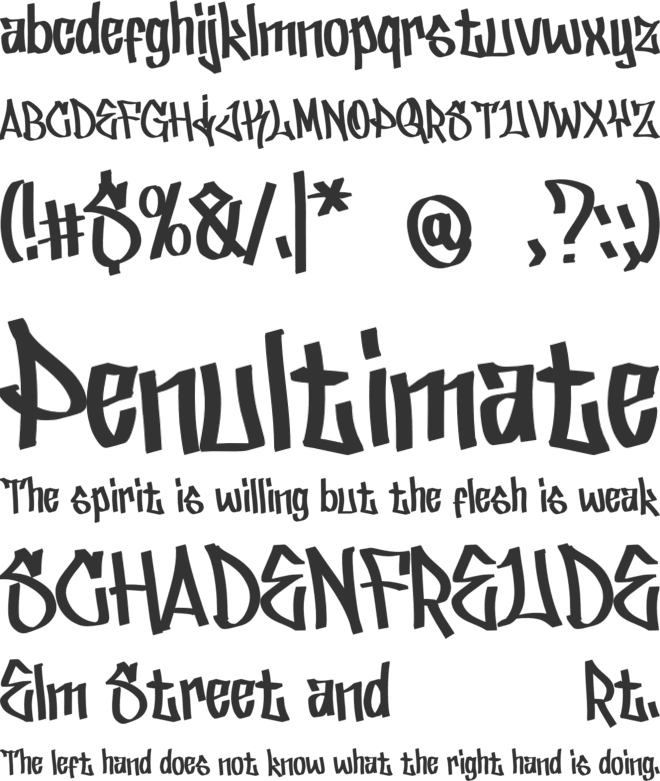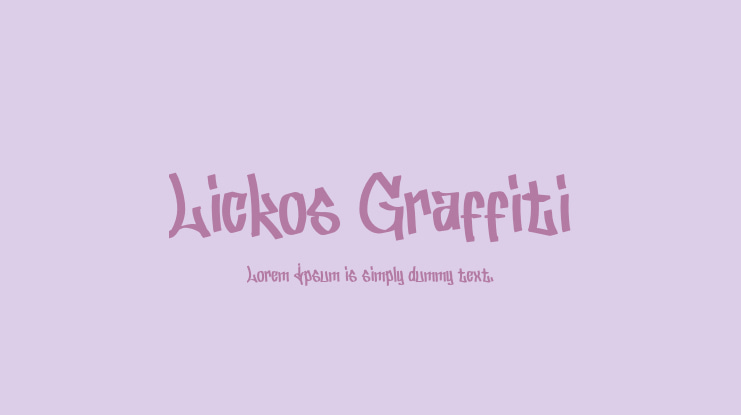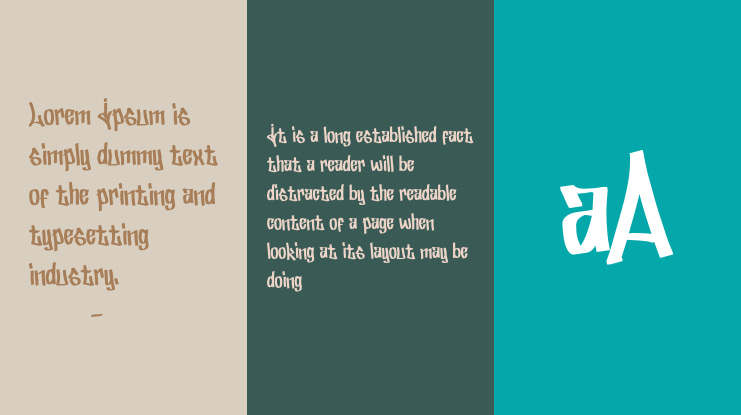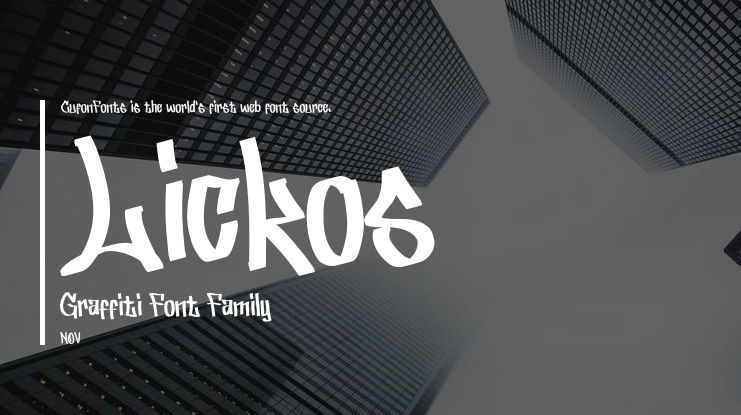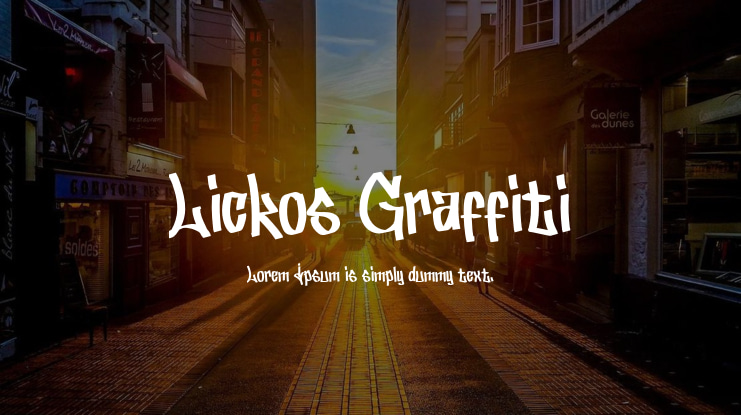
Lickos Graffiti Font Family
Lickos is the newest typeface sporting a tagging graffiti style. The entire typography is designed to shine in large sizes. This font is ideal for designing merchandise, social media posts, marketing materials, product packaging, and branding projects. Lickos supports uppercase, lowercase, numerals, and punctuation.